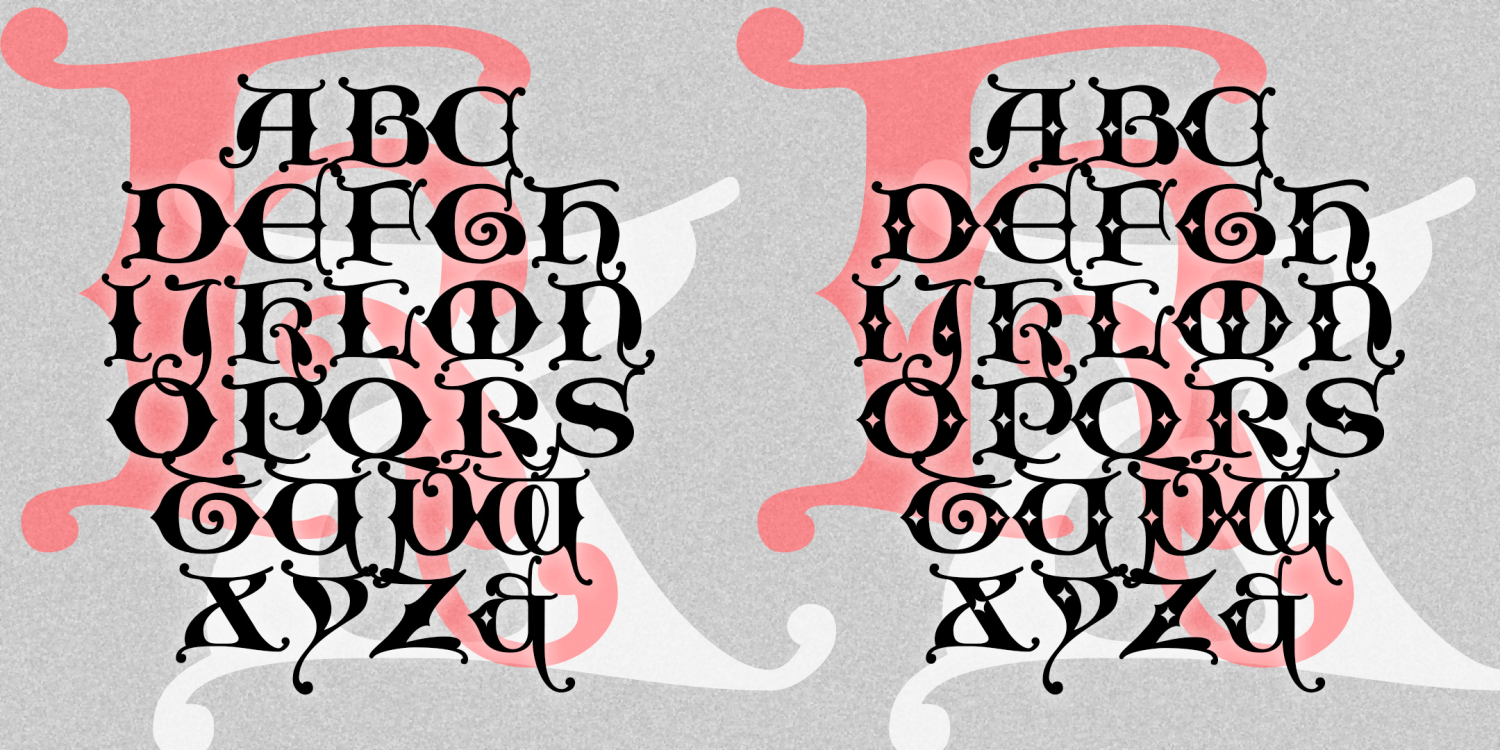
King Xmas
KING XMAS is a versal, or Lombardic, alphabet inspired by a small sample in a 1930s Speedball lettering book. The current version combines two styles in one: solid in the uppercase positions, white-starred letters at the lowercase position, and extended through 0-9. Limited punctuation, not intended for extended
use. There are ampersands in the + and = positions. Pairs nicely with a bold blackletter font like Schnapps.